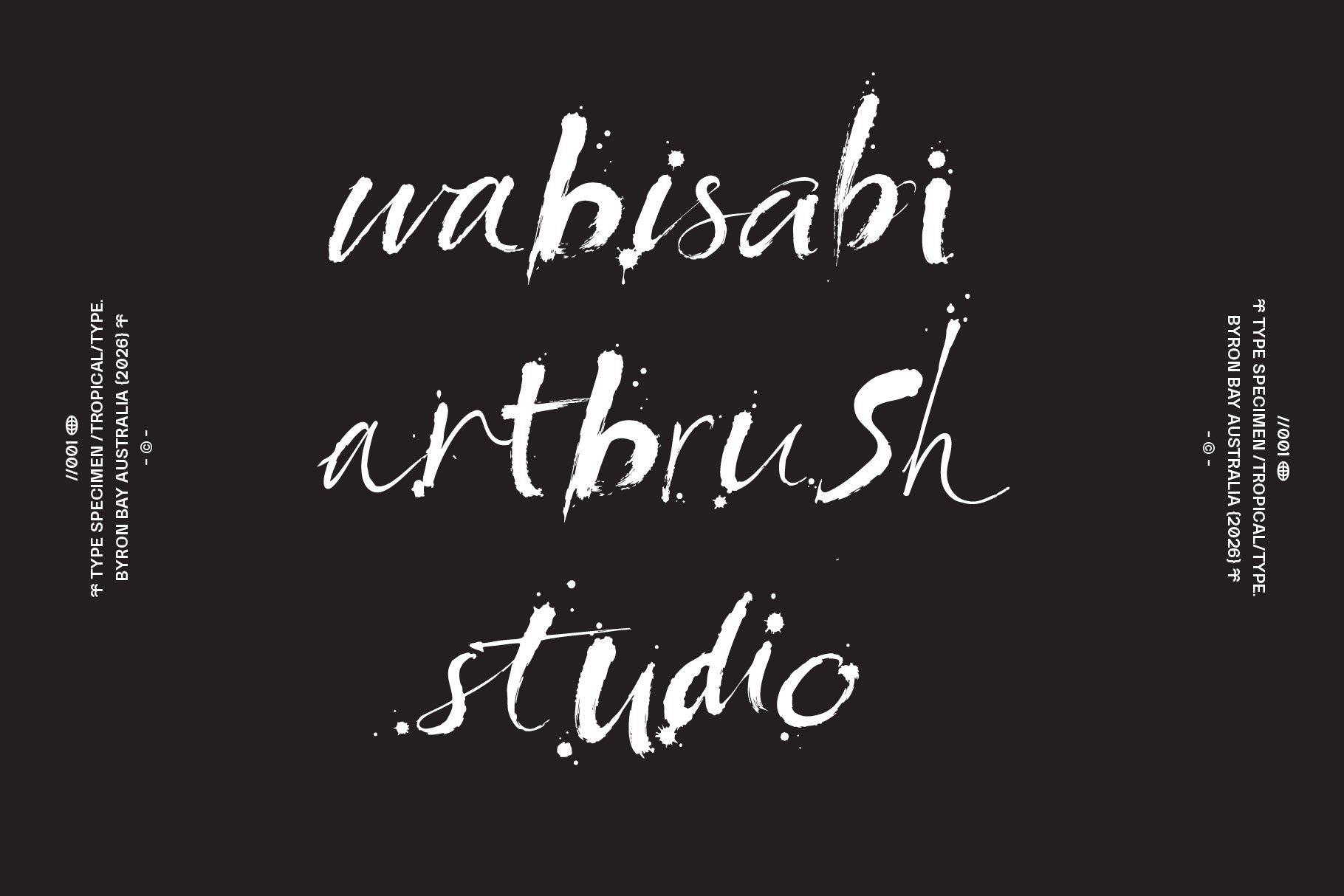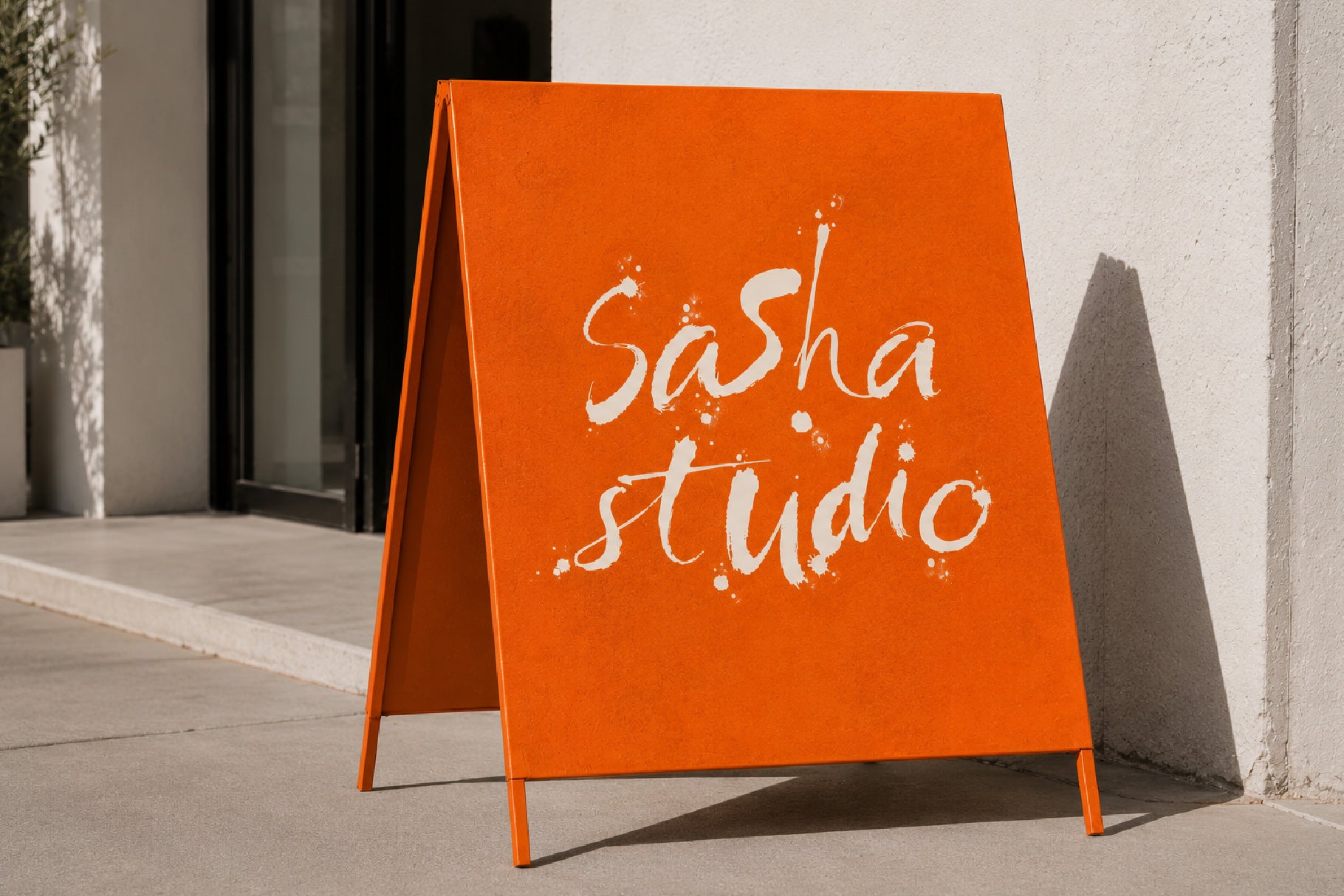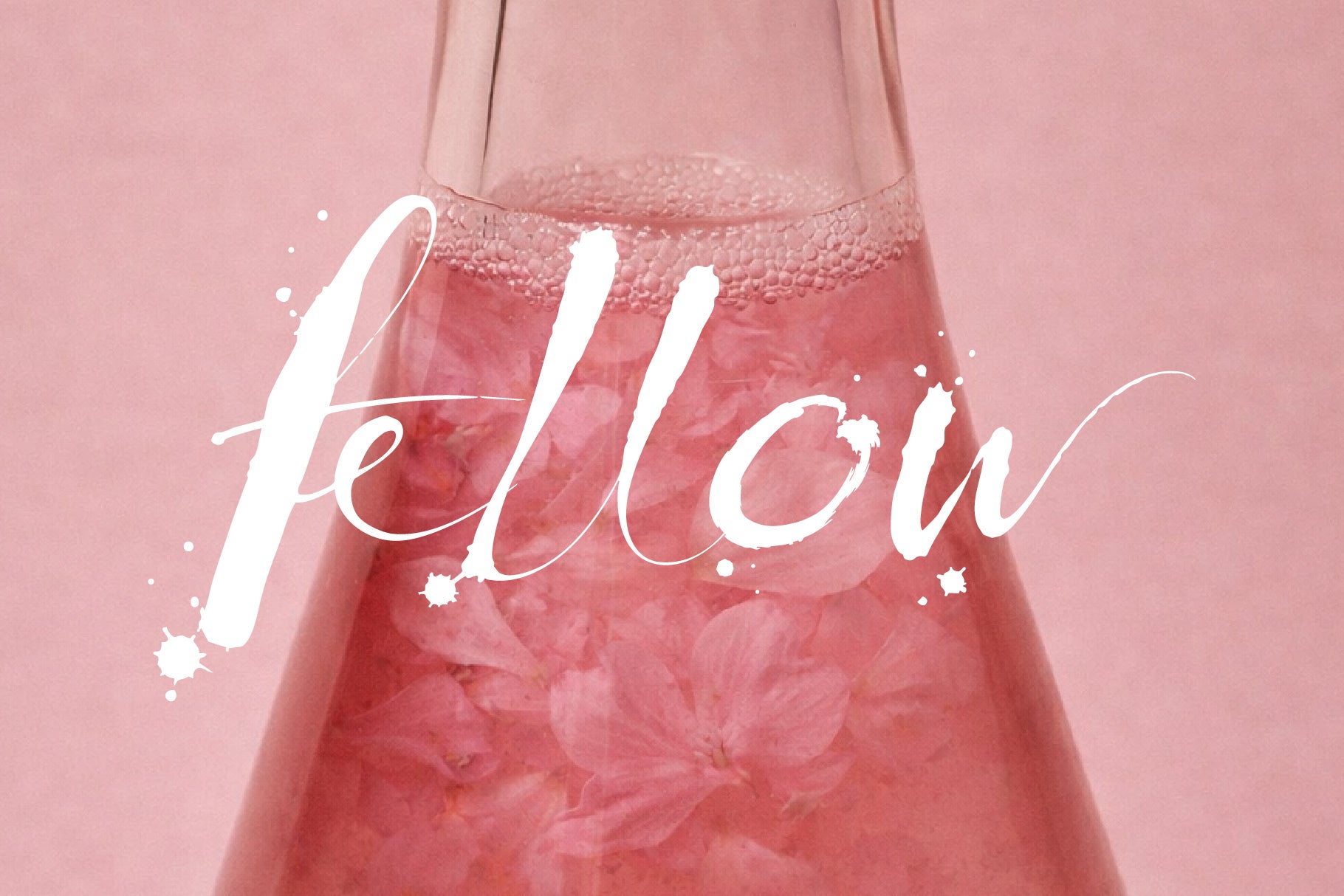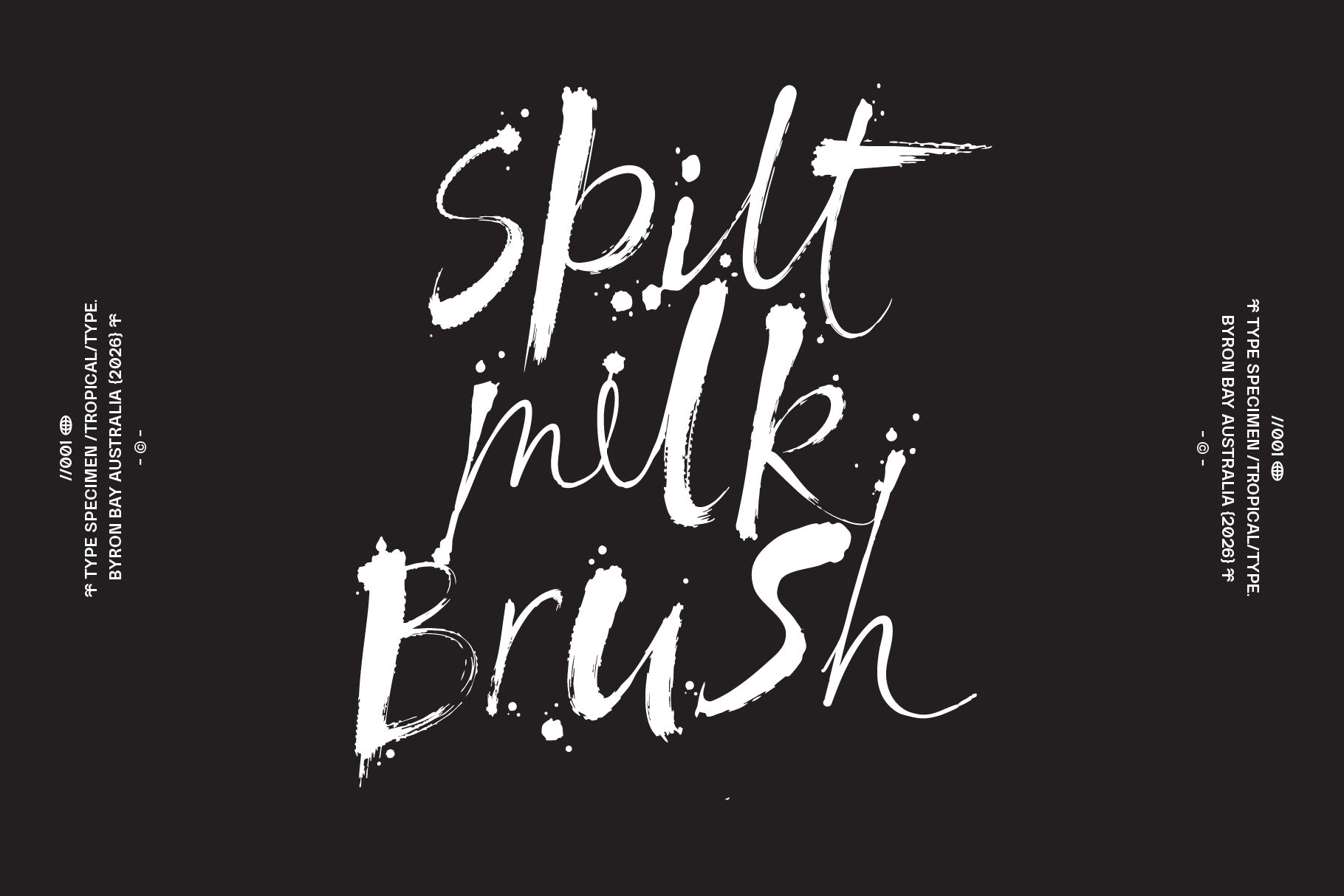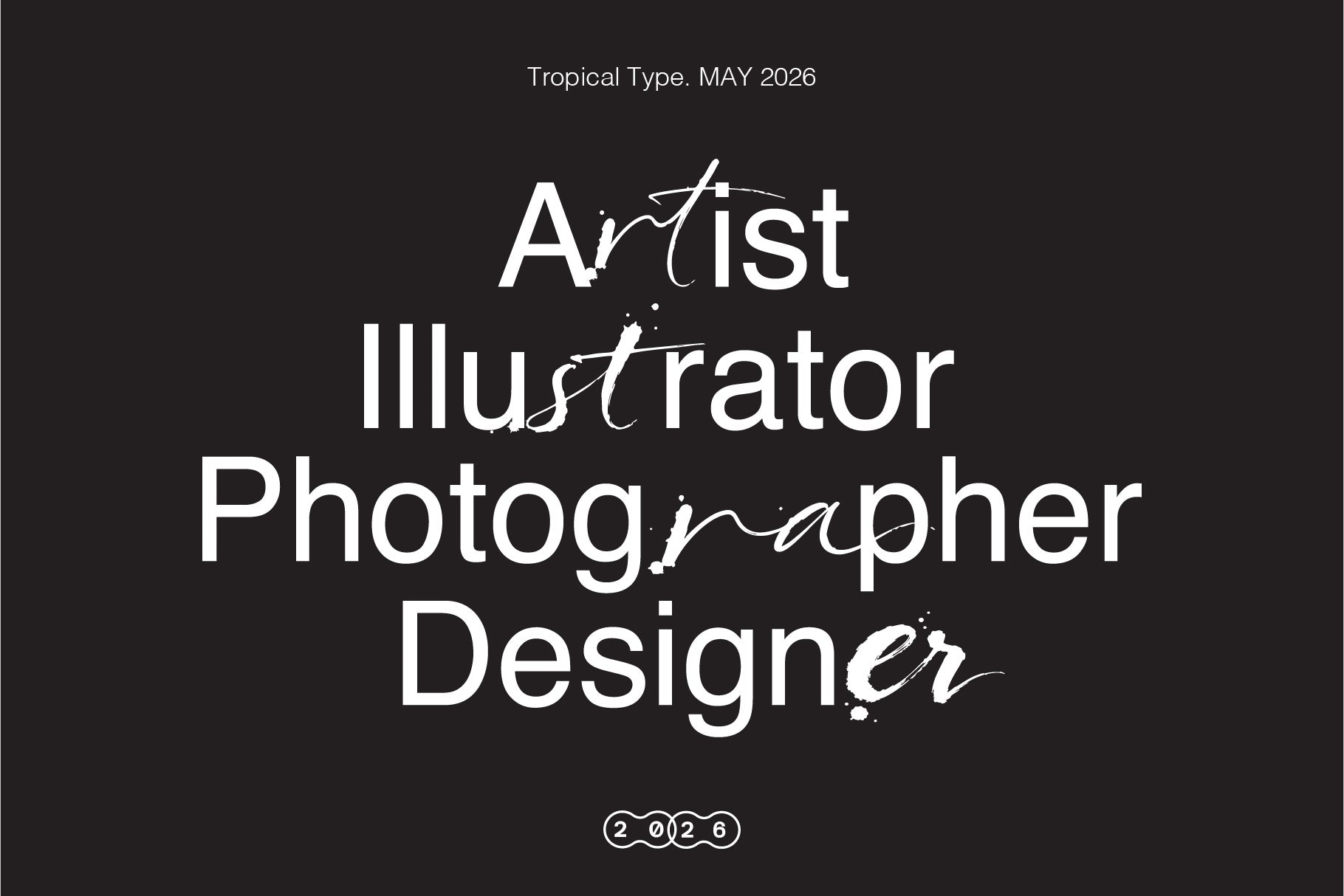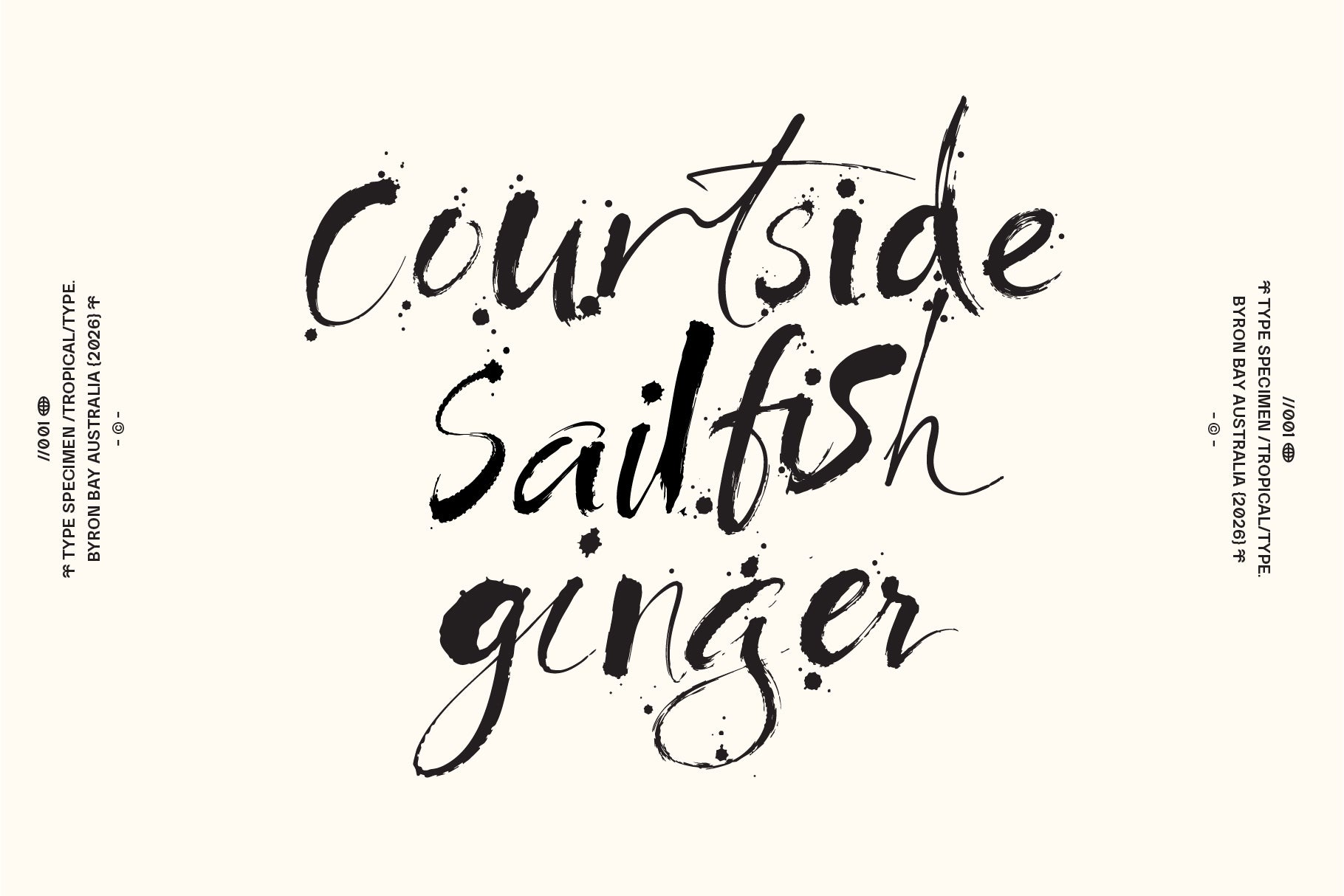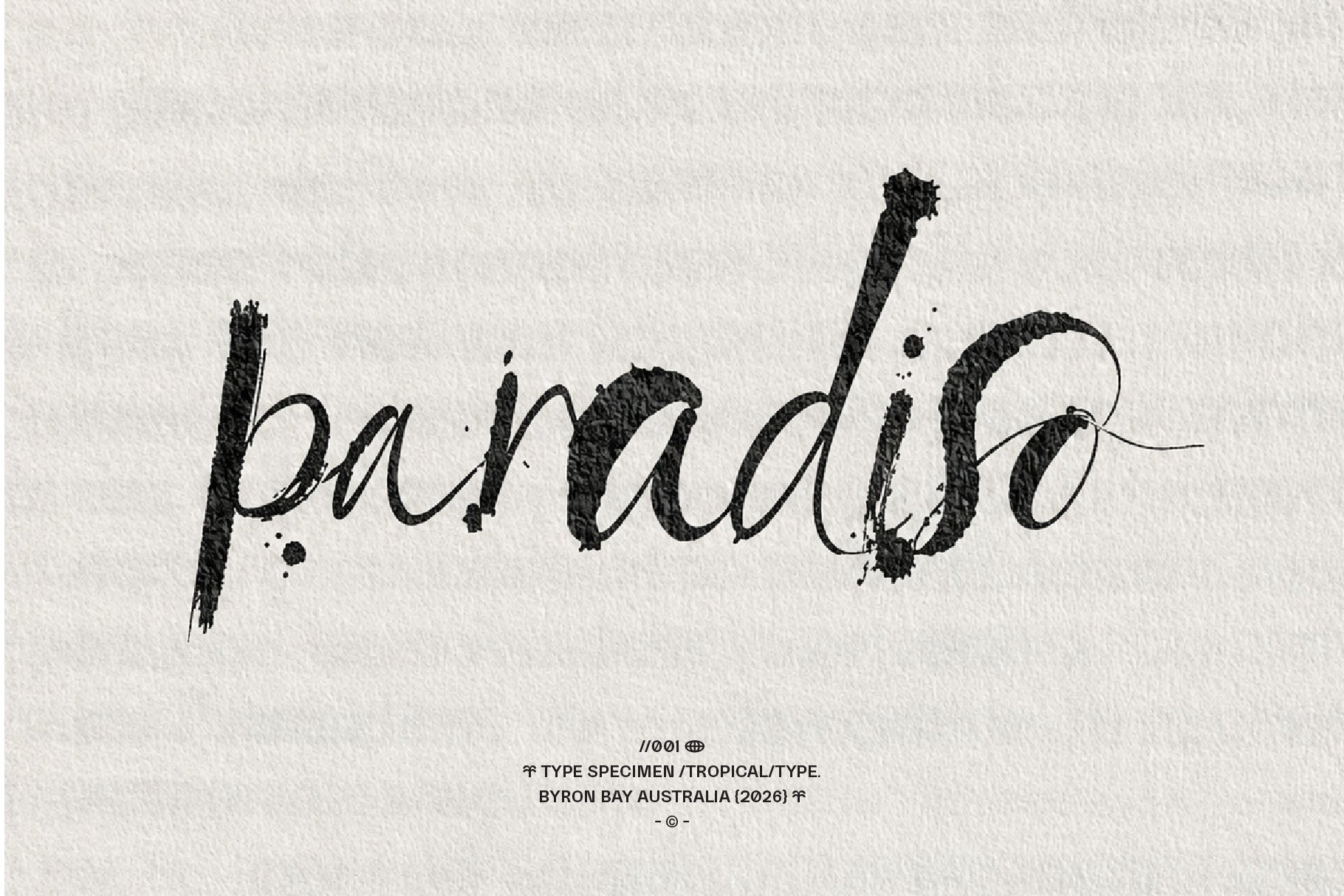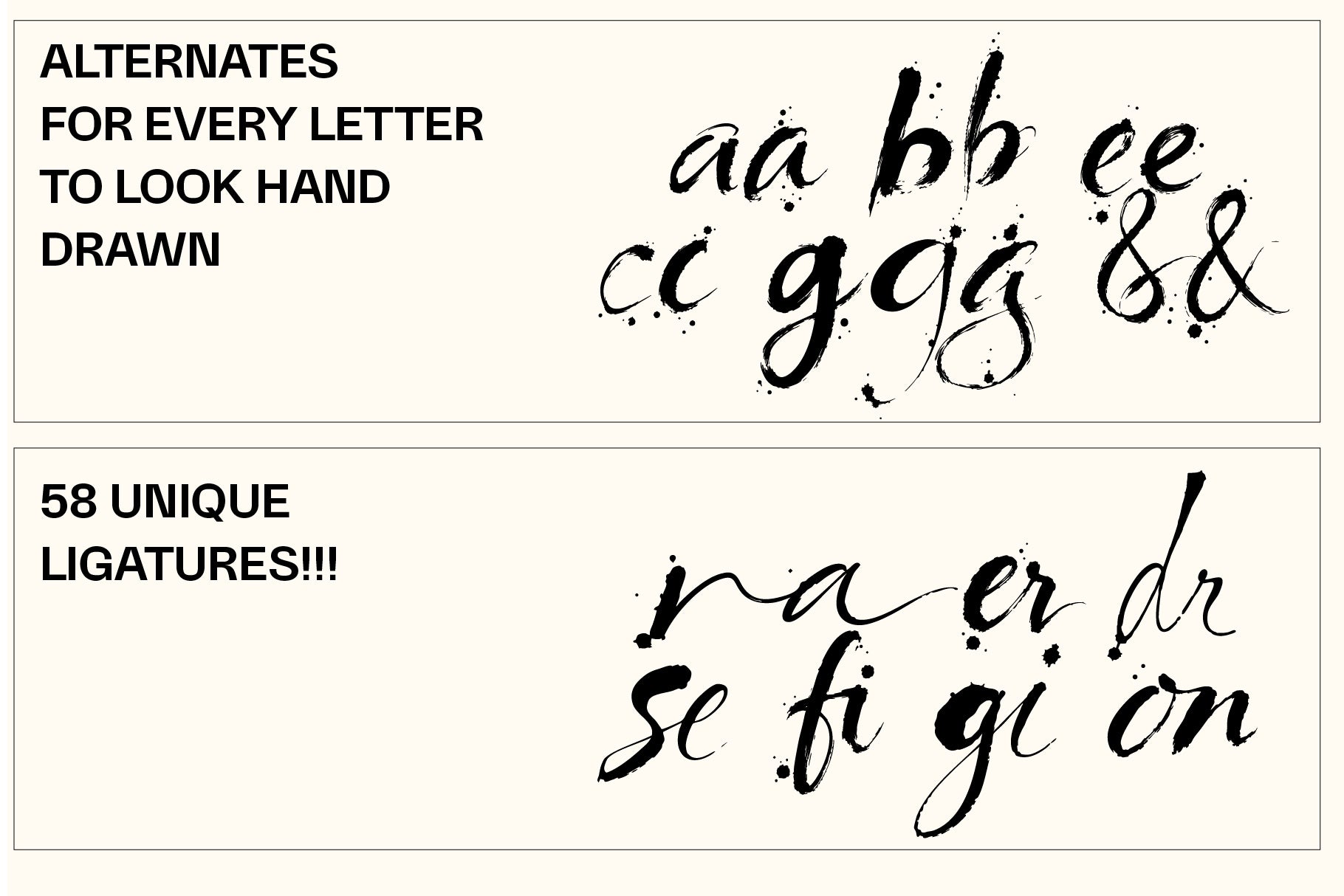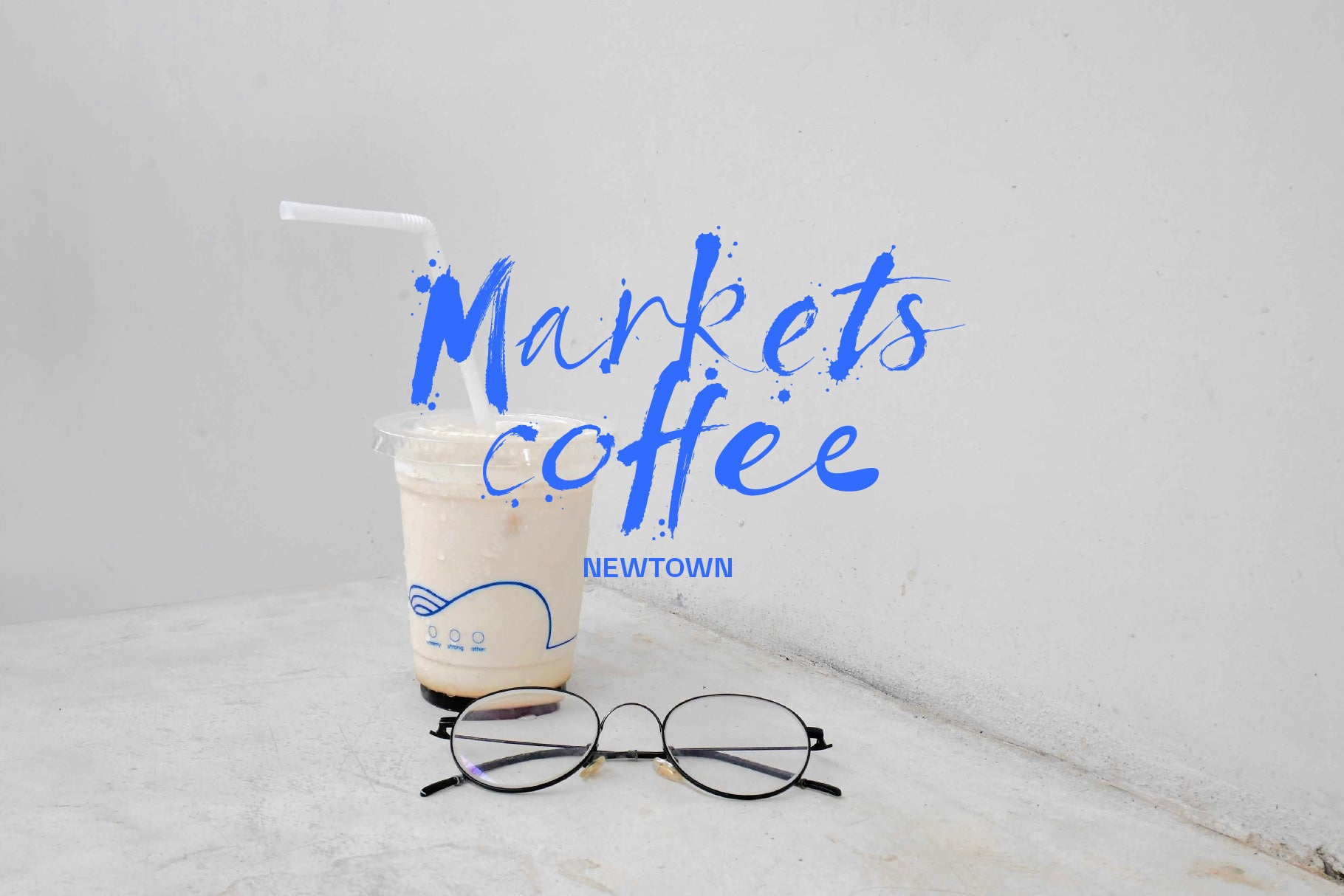
Spilt Milk Brush Font.
Spilt Milk is a mess! - in the best possible way. You're either going to love it or hate so i'm not even going to try sell it to you.....except that is has 58 ligatures and alternates for every letter so have fun mix and matchings painted brush lettering to get all sorts of interesting looks.